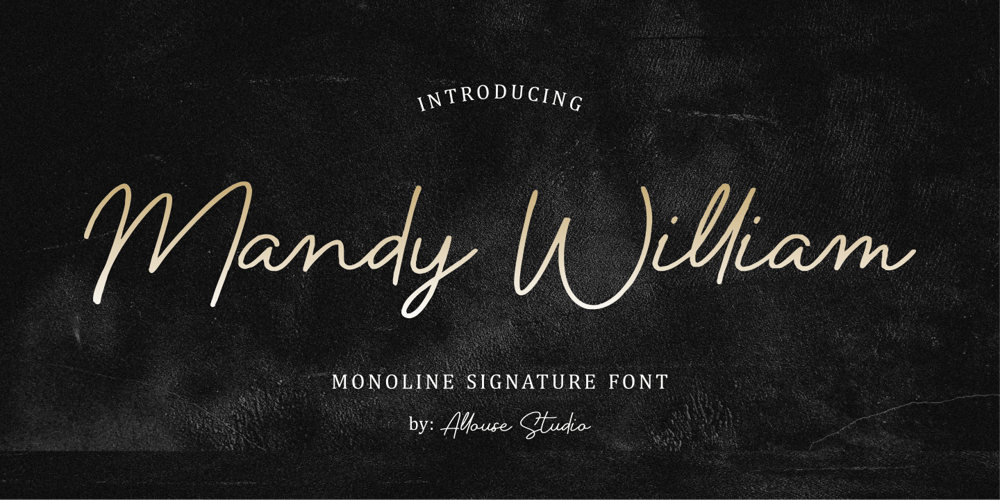
Mandy William Font Family was designed by Fachrizal Yusuf and published by Allouse Studio. Mandy William contains 1 styles and family package options. Proudly presenting Mandy William, a Monoline Signature Font with all the ligatures to fulfill your needs.Mandy William is perfect for any titles, logo, product packaging, branding project, magazine, social media, wedding, or just used to express words above the background.Mandy William also comes with Multi-Lingual Support.